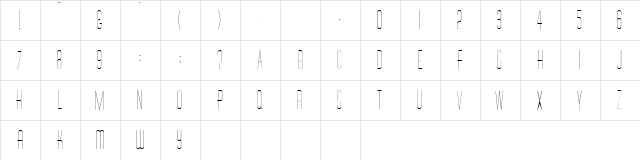
Crossbeam Slim Regular
Crossbeam Slim is a composed and adaptable typeface that performs quietly and consistently across a wide range of design contexts.